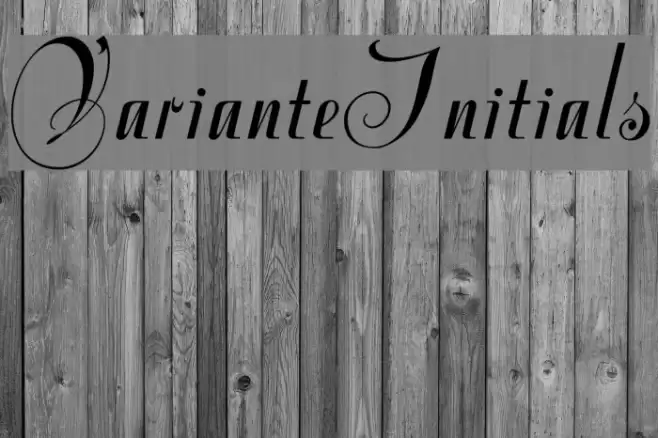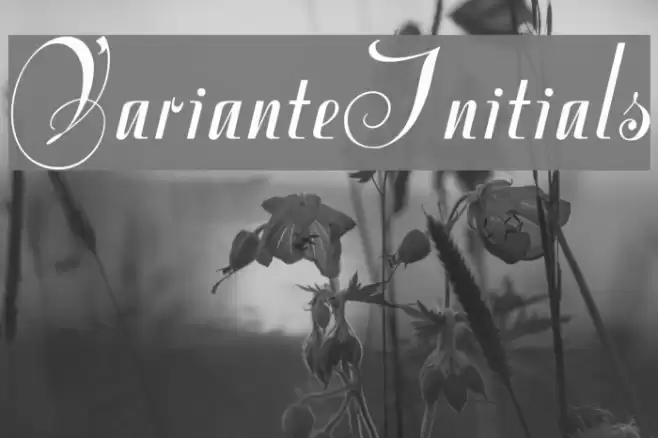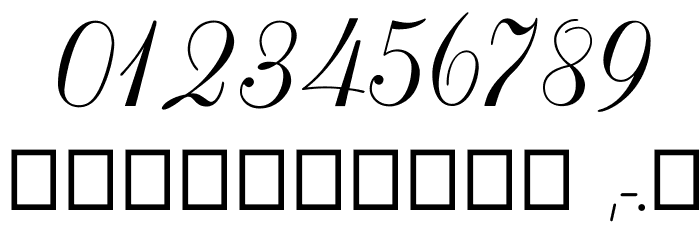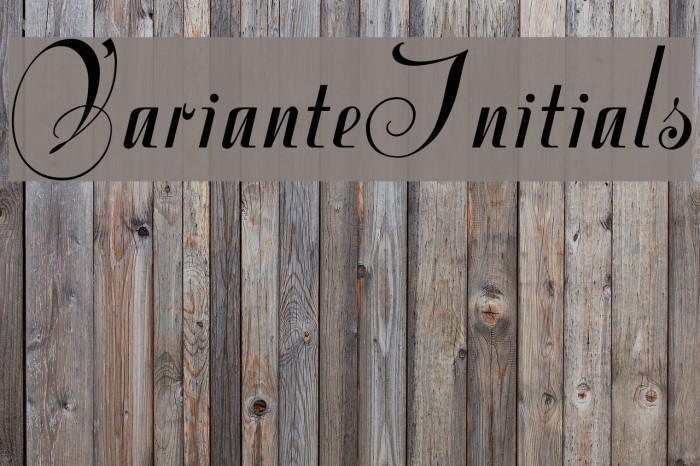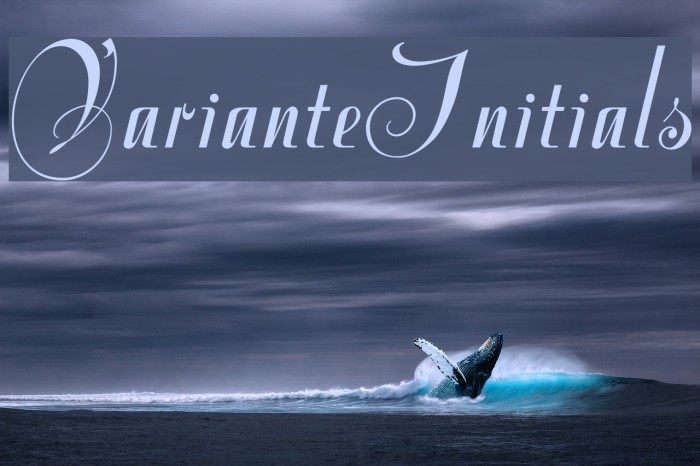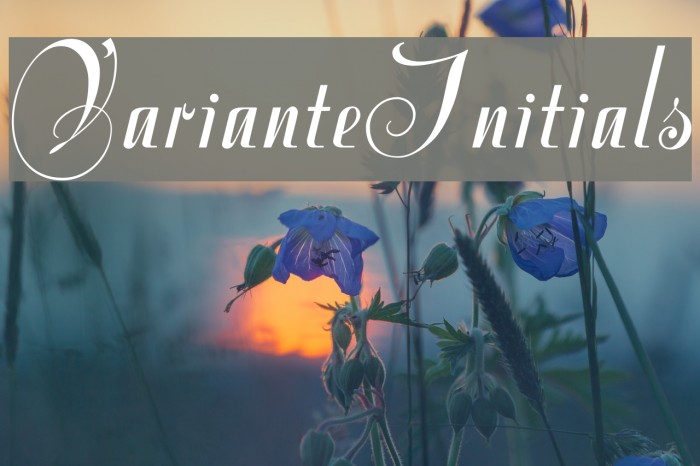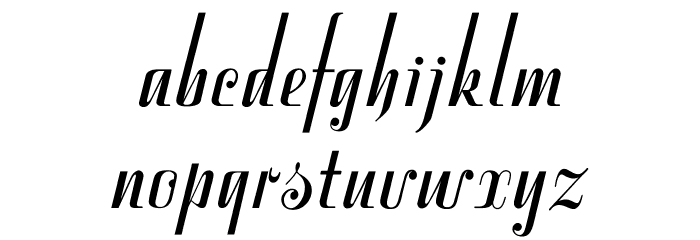
VarianteInitials Font
VarianteInitials Description
This elegant script font features a sophisticated blend of flowing curves and sharp edges, creating a dynamic and stylish appearance. The uppercase letters are characterized by intricate loops and flourishes, adding a touch of formality and grace. The lowercase letters maintain a more straightforward yet complementary style, with gentle slants and smooth transitions. Numbers are designed with a similar flair, ensuring consistency across all characters. The font's overall aesthetic is both classic and modern, making it versatile for various design applications. Its unique style is ideal for projects that require a touch of elegance and refinement.
An elegant script font with flowing curves and sharp edges, perfect for refined designs from Gothic fonts.
- Proposed Projects: Ideal for wedding invitations, luxury branding, elegant logos, and formal event materials.
- Overall Style: Classic
- Use Case: Logos, Invitations, Branding